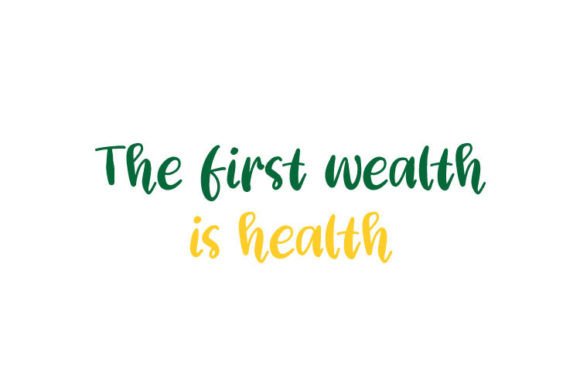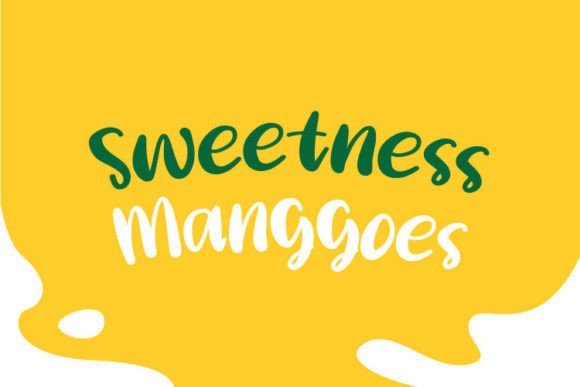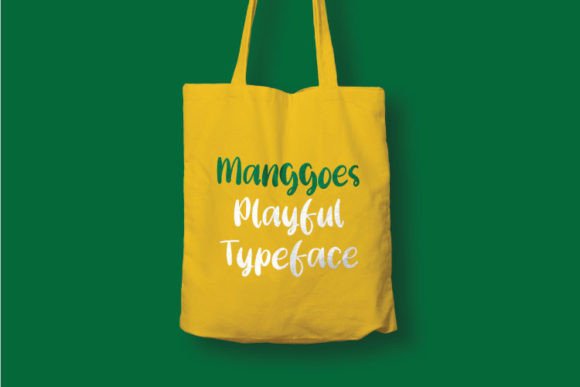
Introduction to Manggoes Font
Manggoes is a clean, cute, and adaptable handwritten font that can be used for various designs.
Its authentic vibe will add a personal and realistic feel to your designs .
Key Features of Manggoes Font